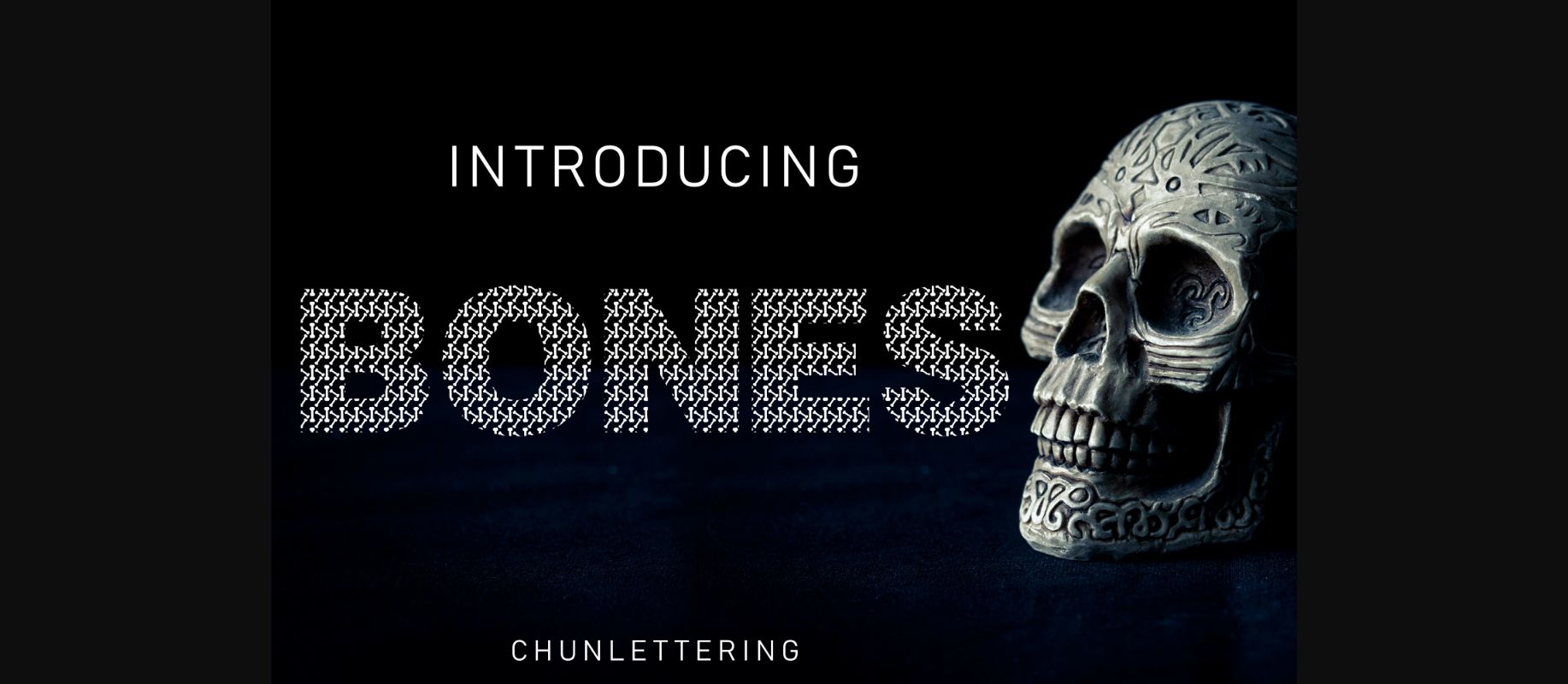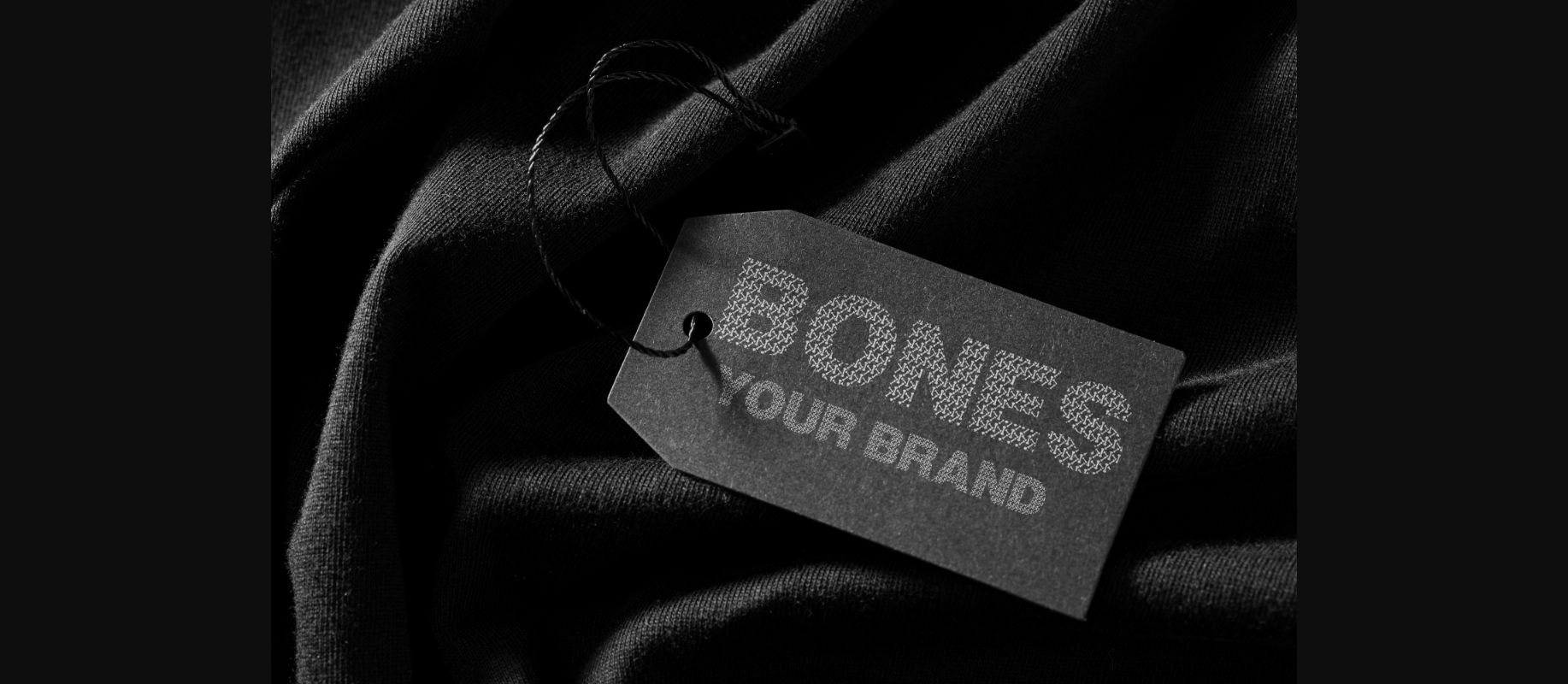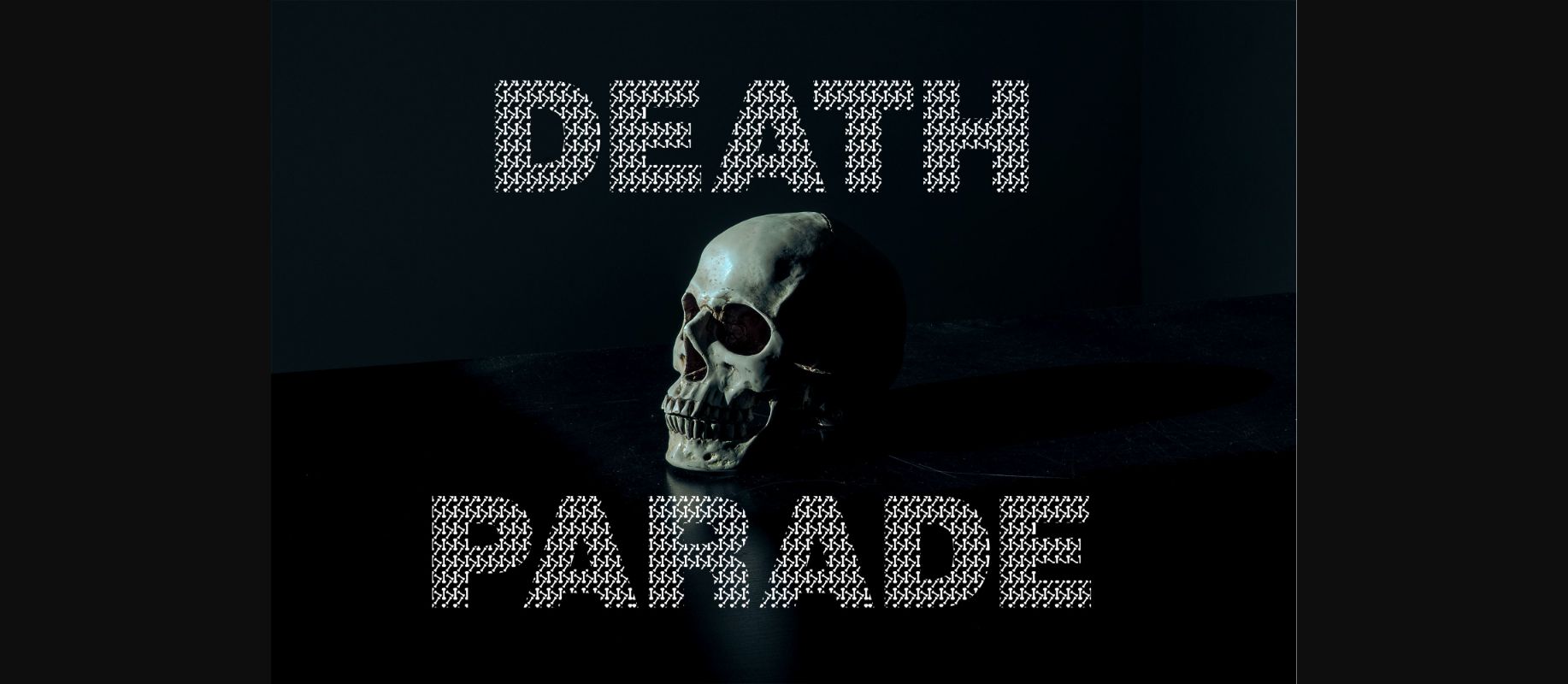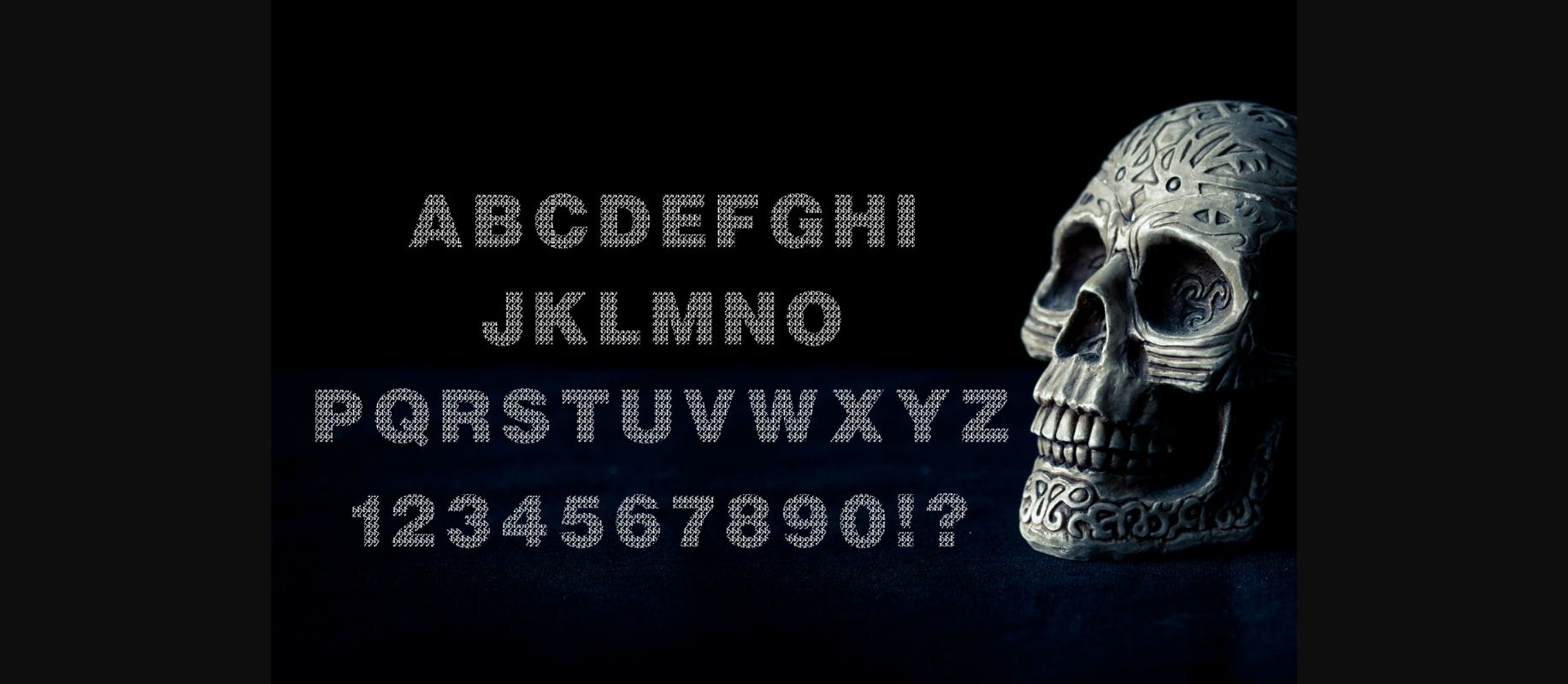
Bones Font
About Bones Font
Bones is a display decorative font with a unique style. This font is perfect for any branding project such as logos, t-shirt printing, creative products, and more. It will look extraordinary in a variety of contexts. It will look extraordinary in a variety of contexts.